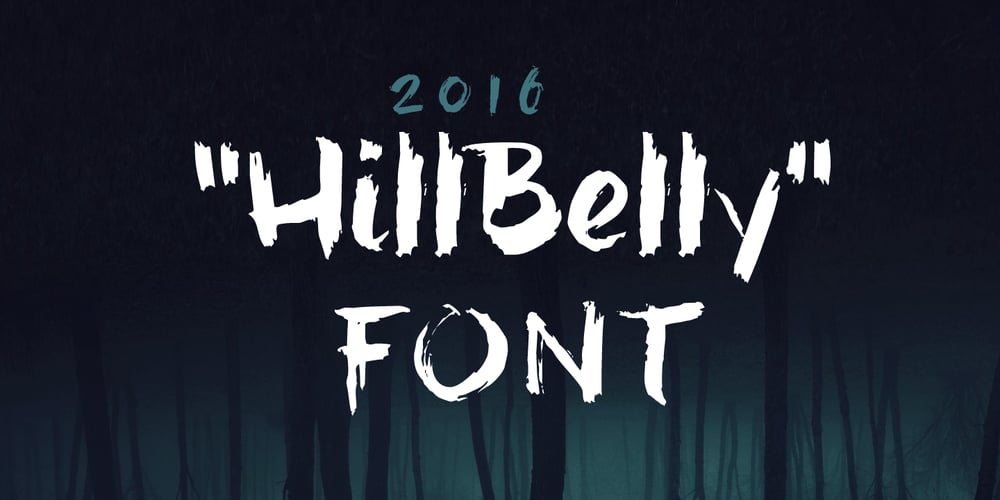
HillBelly Font Family was designed by Jeroen “Joebob” van der Ham and published by JOEBOB graphics. HillBelly contains 1 styles and family package options. It’s a ragged, brushy script font, created late in the evening with a busted felt-pen on an empty stomach.